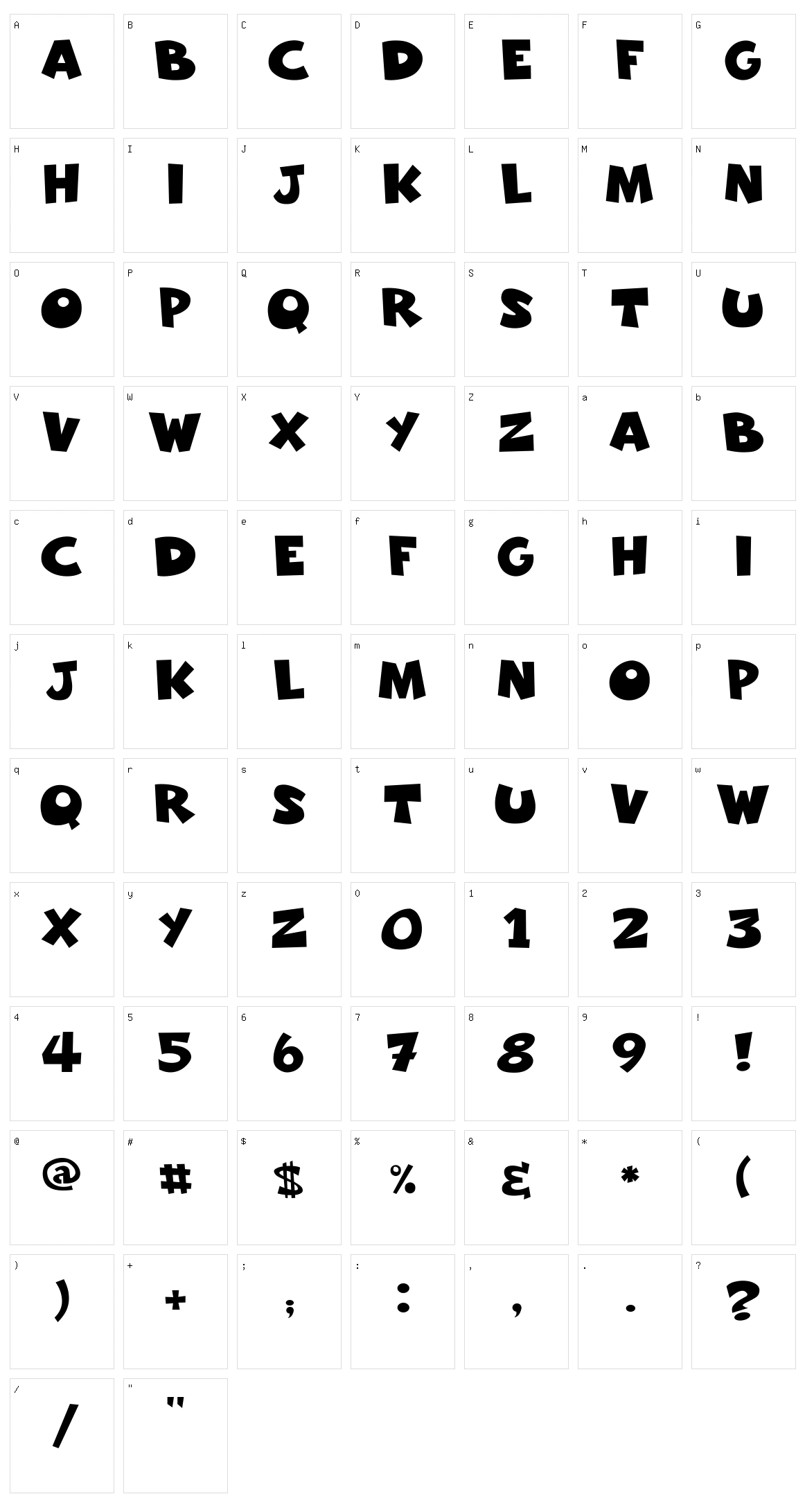
The free font Freakomix is carefully designed by Paulo Cunha Jr., showcasing a thoughtful balance of creativity and usability and falls under the Cartoon font style. When you download the ZIP file, it contains only 9.71 KB of font files, making it lightweight and quick to download. Please review the license details below to understand permitted usage and distribution rights. If license information is not available, we recommend using this font for personal projects only or contacting the author directly for commercial usage permissions.